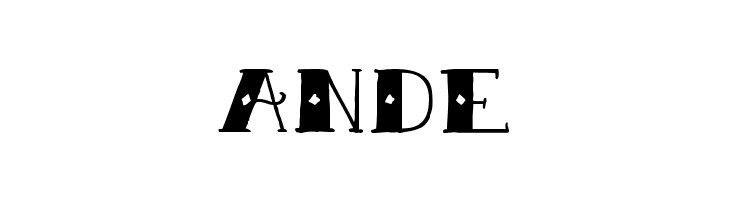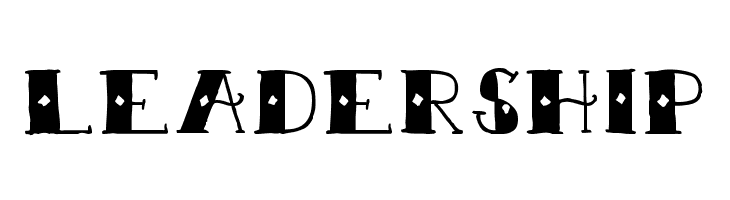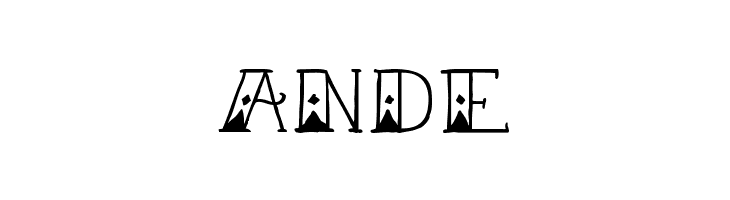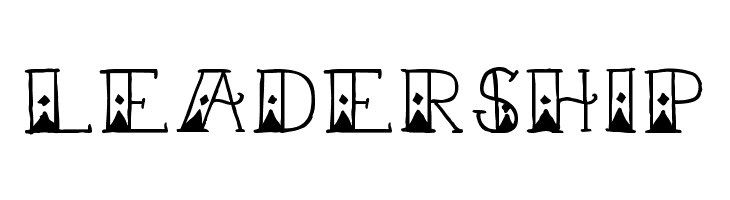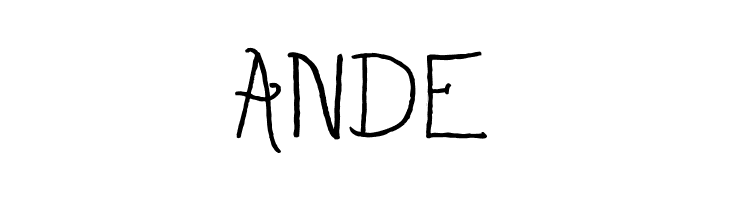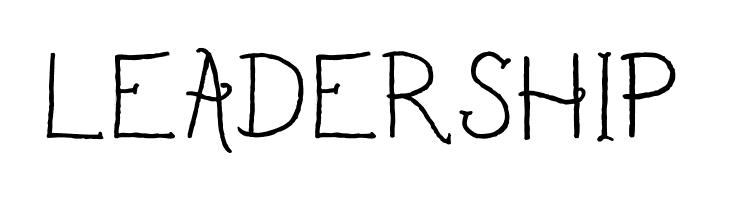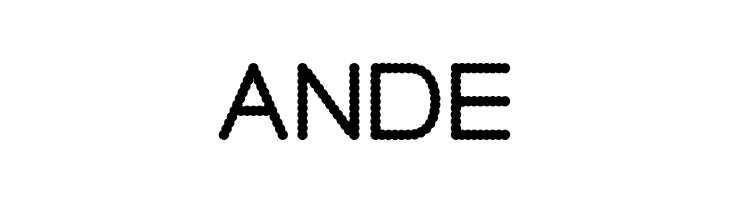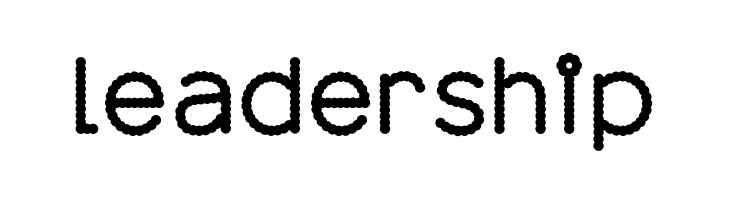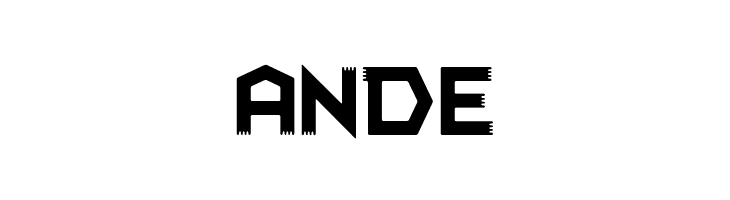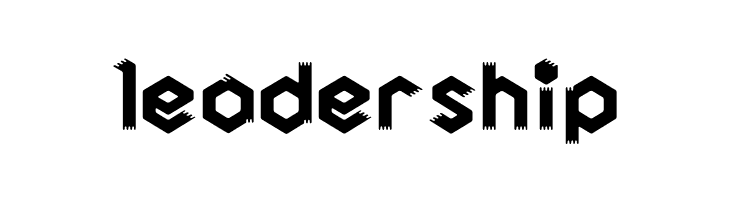
A dynamic and flowing script font with elegant, cursive letterforms.
A bold, edgy font with a hand-drawn, rebellious style.
A bold, distressed font with a grunge texture and rugged appearance.
A decorative and whimsical font with swirling, interconnected strokes and playful loops.
A modern, distressed font with a futuristic, stencil-like design.
A bold, geometric font with a modern and futuristic design.
A bold, artistic font with high contrast and calligraphic flair.
A bold, geometric font with clean lines and modern style.
A playful, handwritten font with thin, irregular strokes and a whimsical charm.
A bold, textured font with a hand-drawn, sketch-like appearance.
An artistic and calligraphic font with flowing curves and dynamic strokes.
A bold and artistic script font with dynamic strokes.
Elegant italic font with calligraphic influence and smooth curves.
A playful, dotted font with a cohesive and decorative style.
A bold, geometric font with a digital glitch effect, perfect for modern and edgy designs.
A whimsical, hand-drawn font with textured, sketch-like strokes.
A decorative font with a nautical theme, featuring bold strokes and intricate details.
A bold, decorative font with playful cutouts and a whimsical style.
A whimsical, hand-drawn font with playful, uneven strokes.
A bold, nautical-themed decorative font with anchor-like serifs.
A playful, handwritten font with dynamic strokes and an informal style.
A modern, artistic font with flowing, interconnected strokes.
An artistic, cursive script font with flowing, decorative elements.